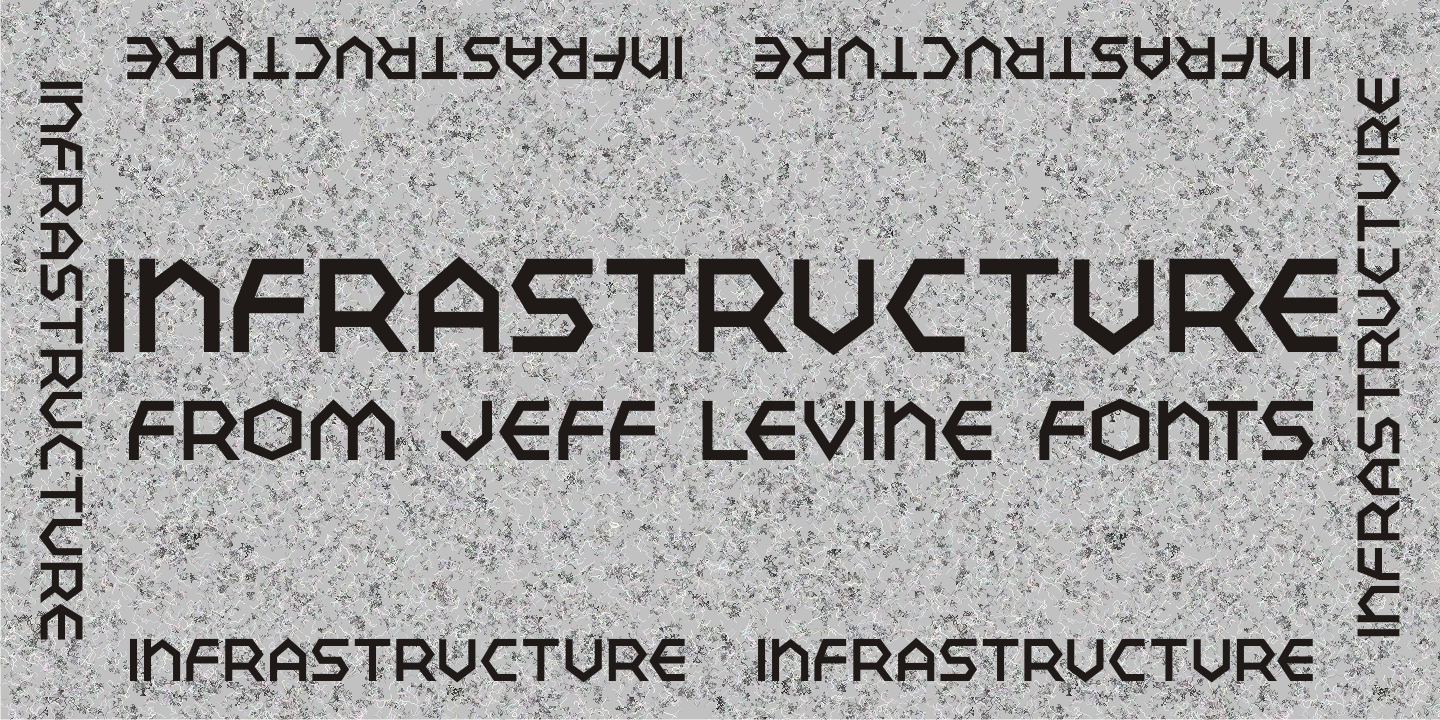
Infrastructure
A 1930s-era poster to 'See America – Welcome to Montana” was issued by the United States Travel Bureau; one of the WPA (Works Progress Administrations) projects promoting travel and tourism within the country.
The hexagon-inspired angular lettering on the poster provided the inspiration for Infrastructure JNL.
Infrastructure JNL Regular by Jeff Levine Fonts